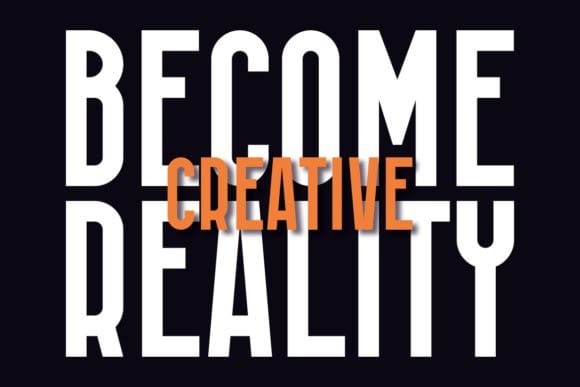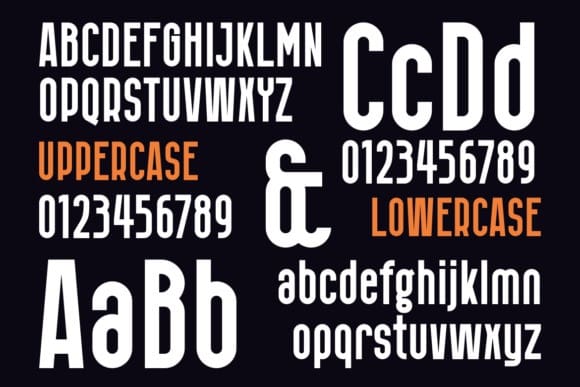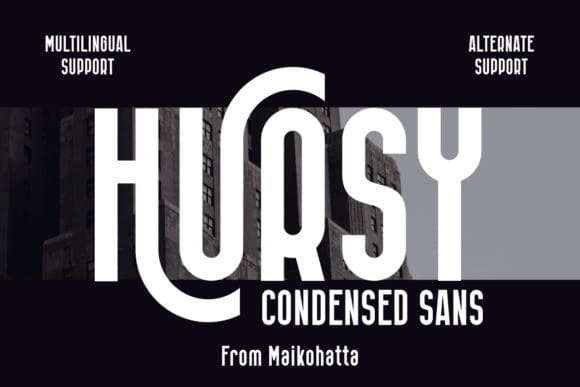
Hursy Font
Hursy Font – Condensed Font – Modern Font is a bold and authentic display font. The font is suitable for any branding project like logo, template design, esport, and many more. outstanding in a wide range of contexts.